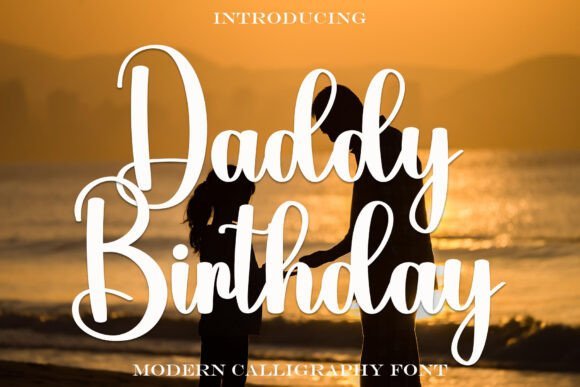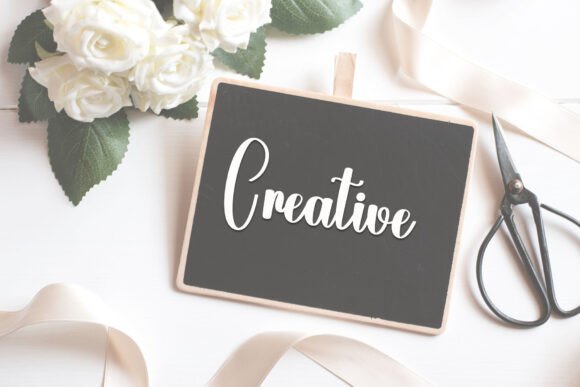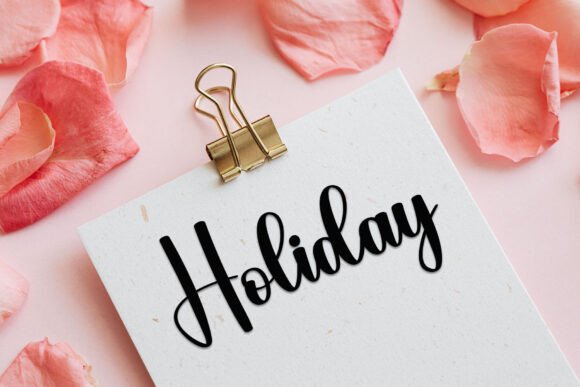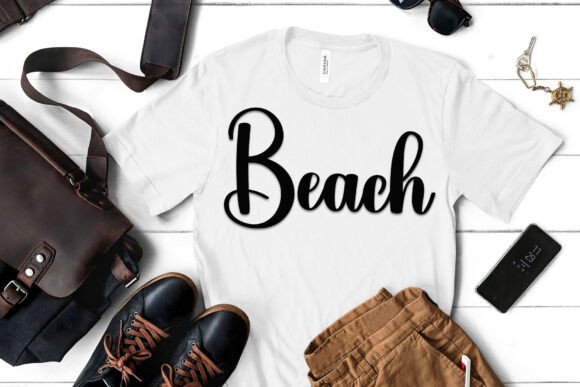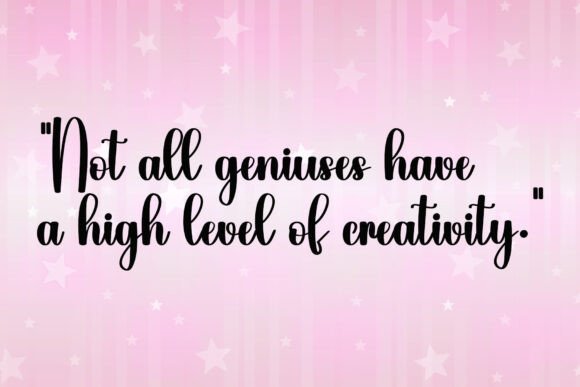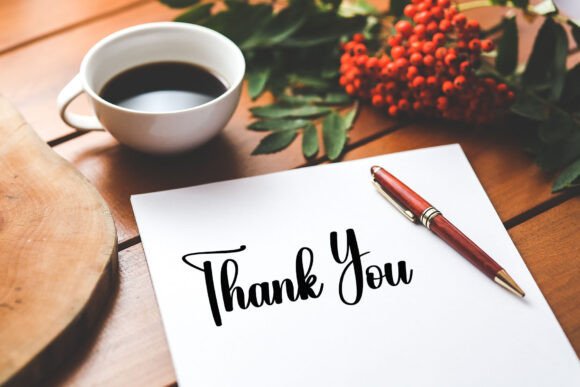
Happy Birthday to Your Designs: Introducing Daddy Birthday Font
You know that moment when you’re brainstorming a new design project and suddenly, the perfect font pops into your head? It’s like a spark of creativity that sets everything off on the right track. For me, that moment came when I discovered the Daddy Birthday Font – a stunning handwritten font that adds a touch of elegance and sophistication to any design.
This beautiful font is inspired by timeless classic calligraphy, giving it an unmistakable, high-end feel. Whether you’re creating a birthday invitation, a wedding program, or a special event announcement, the Daddy Birthday Font is the perfect choice to make your design stand out. Its impeccable form and contemporary atmosphere make it a valuable addition to any designer’s toolkit.
With the Daddy Birthday Font, you can elevate your designs and make them truly unforgettable. Its versatility and sophistication make it a must-have for any designer looking to add a touch of class to their work.
Daddy Birthday Font Key Features
- Font Style: A fun, playful, and cursive font perfect for celebrating special occasions like birthdays.
- Unique Characteristics: Features swashes, flourishes, and connecting strokes to create a unique and personalized look.
Daddy Birthday Font Review
I’ve had the chance to work with ‘Daddy Birthday Font’ on a recent project, and I have to say it’s been a mixed bag. Here are my honest thoughts:
- The font’s playful, cursive style is perfect for adding a personal touch to birthday invitations or cards.
- The ‘Daddy Birthday Font’ is well-suited for casual, handwritten text, making it ideal for social media posts or captions.
- The font’s bold, expressive strokes give it a unique charm that can add a lot of character to your designs.
- The font’s lack of legibility at smaller sizes can make it difficult to read in certain contexts.
- The ‘Daddy Birthday Font’ may not be the best choice for formal or professional designs, as its playful style can come across as unpolished.
- The font’s limited character set can make it tricky to use for longer blocks of text.
While the ‘Daddy Birthday Font’ has its charms, it’s not a versatile font that can be used in a wide range of situations. It’s best suited for casual, creative projects where its playful style can shine. If you’re looking for a more polished, professional font, you may want to consider other options.
The Daddy Birthday Font is commonly used for:
- Birthday invitations and cards.
- Personalized gifts and decorations.